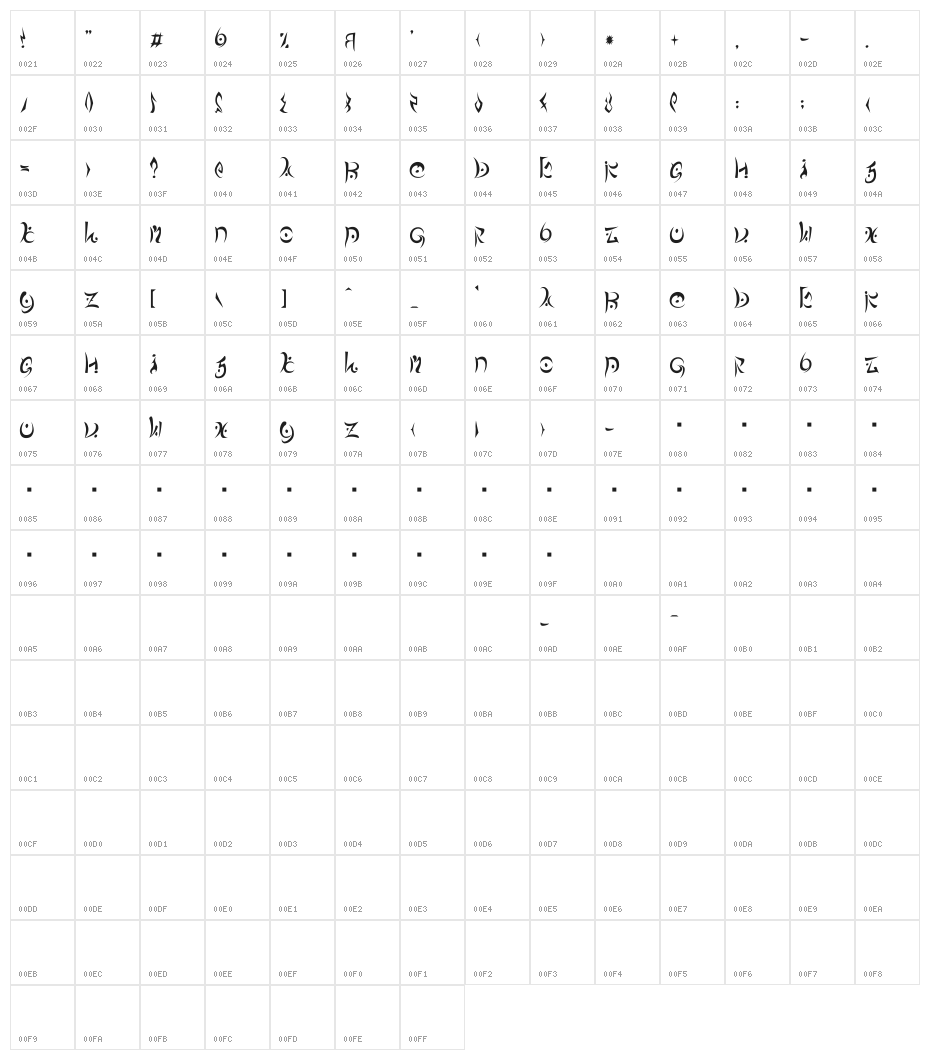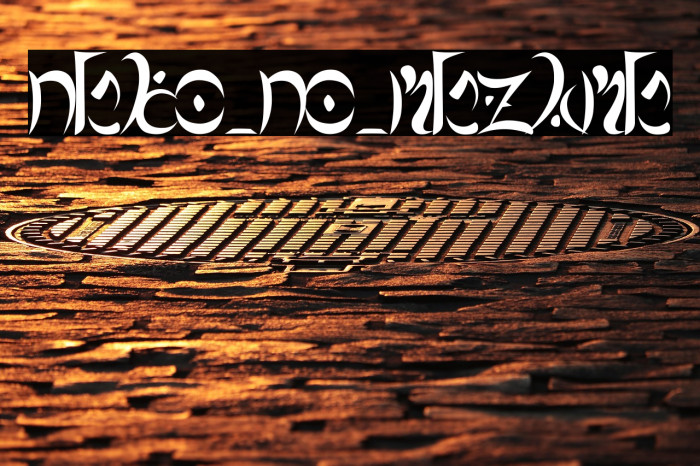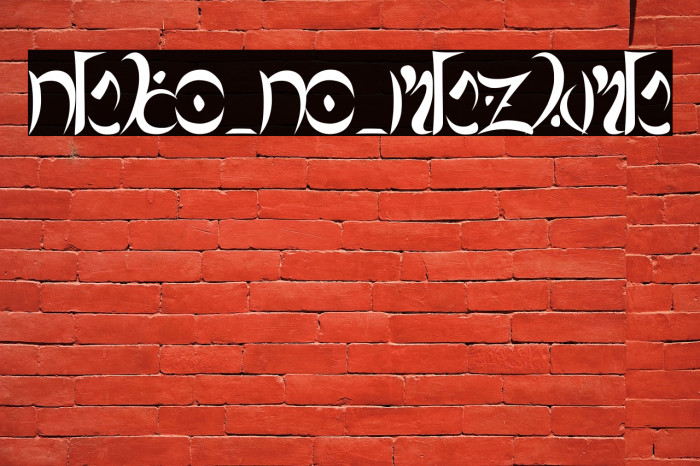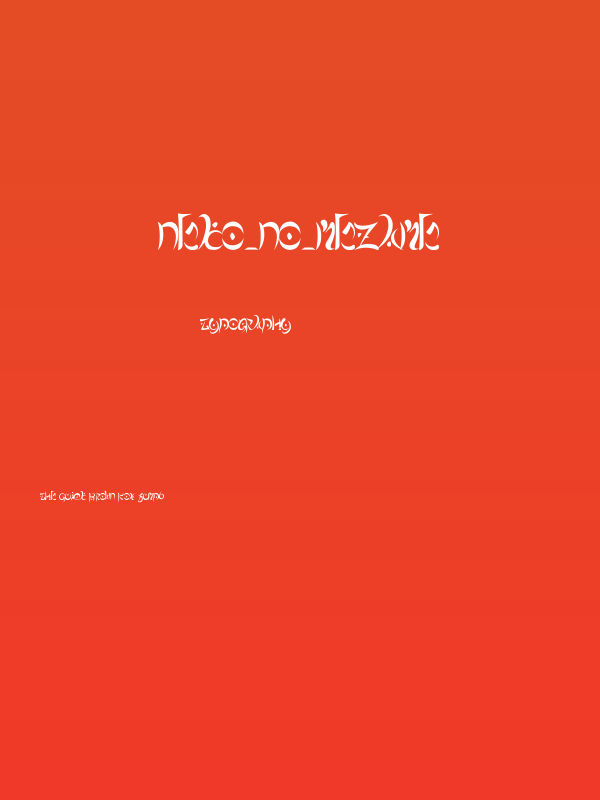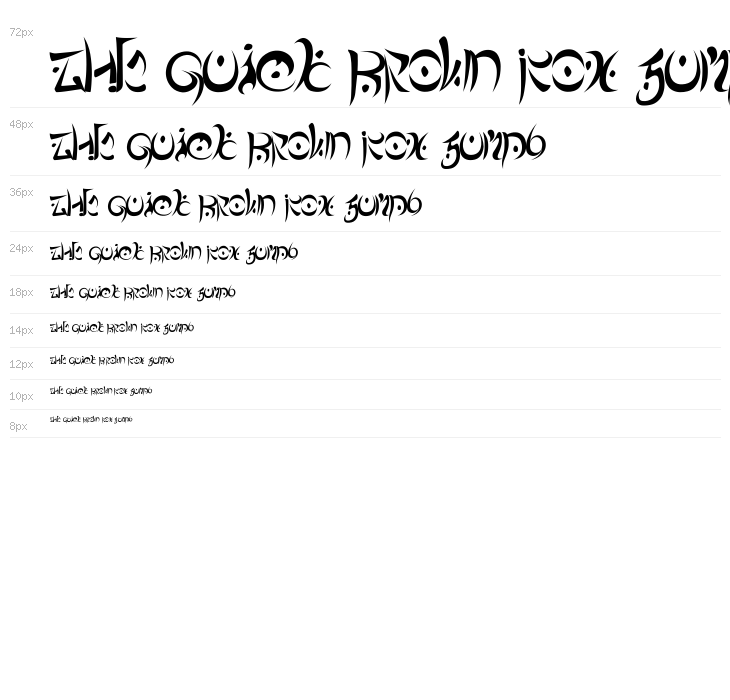
Neko_no_Mezame Font
Neko_no_Mezame Description
This font features a highly decorative and intricate design, characterized by its sharp, angular strokes and unique, artistic flair. Each character is crafted with a sense of movement and dynamism, often incorporating pointed edges and swirling elements that give it a tribal or mystical appearance. The font's style is bold and eye-catching, making it suitable for projects that require a strong visual impact. Its complex forms and high contrast between thick and thin strokes add to its dramatic and expressive nature.
| Proposed Projects | Ideal for tattoo designs, fantasy-themed posters, album covers, and branding for alternative or edgy products. |